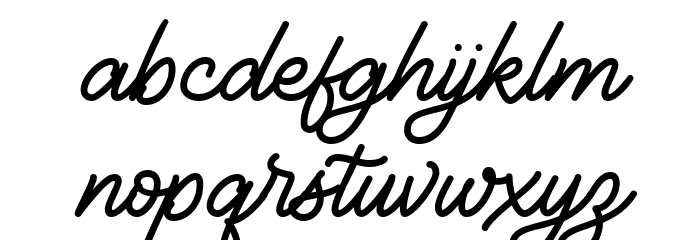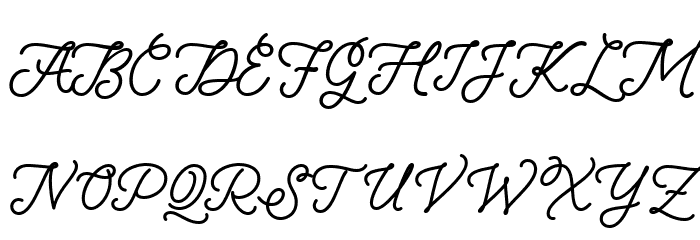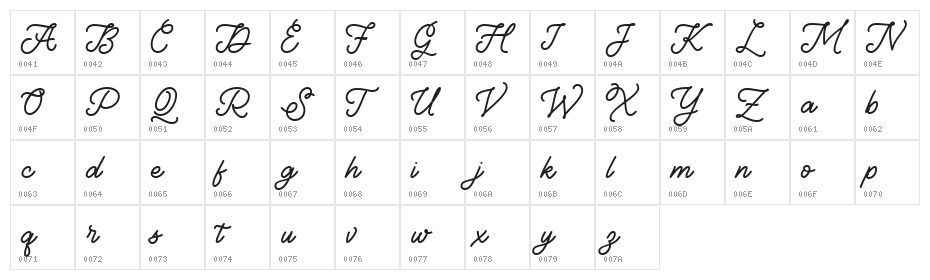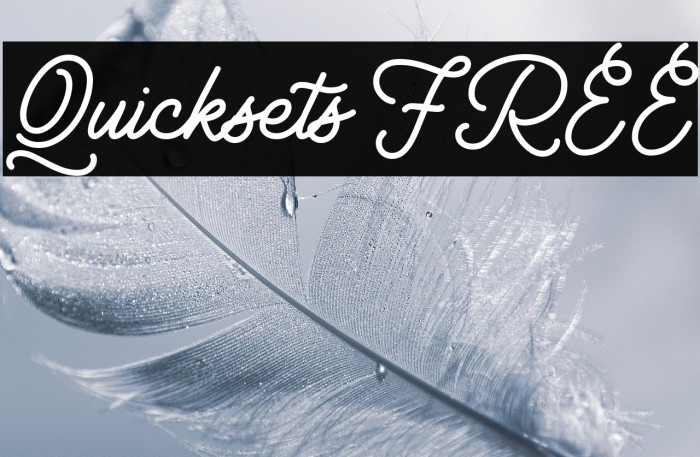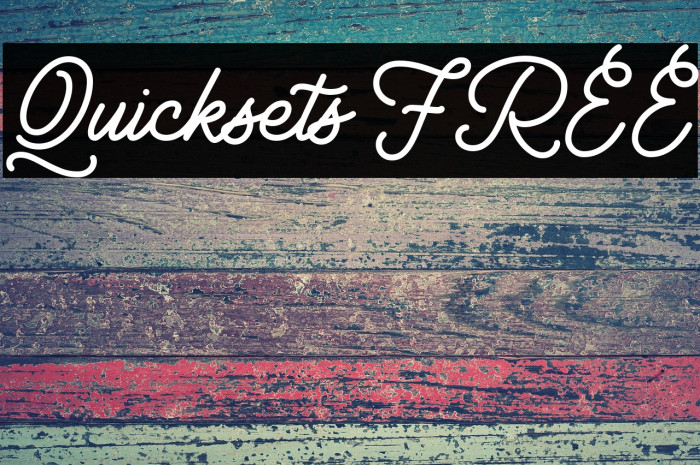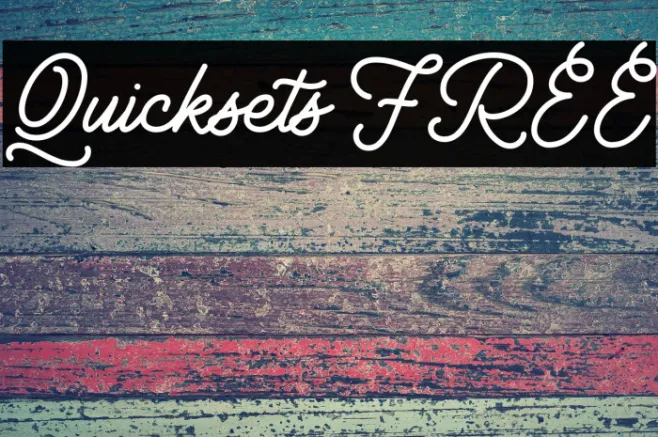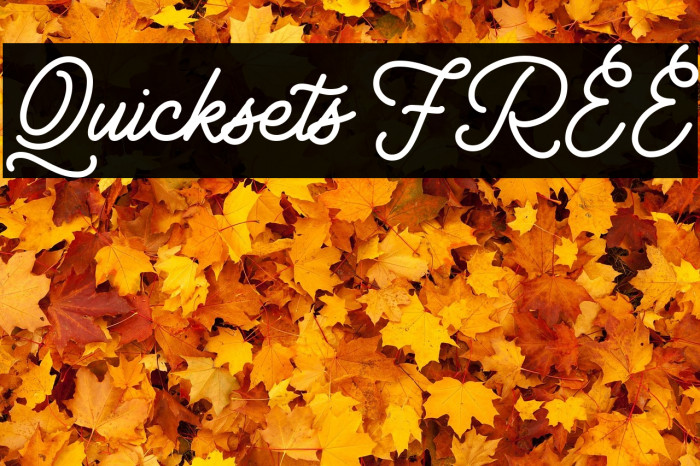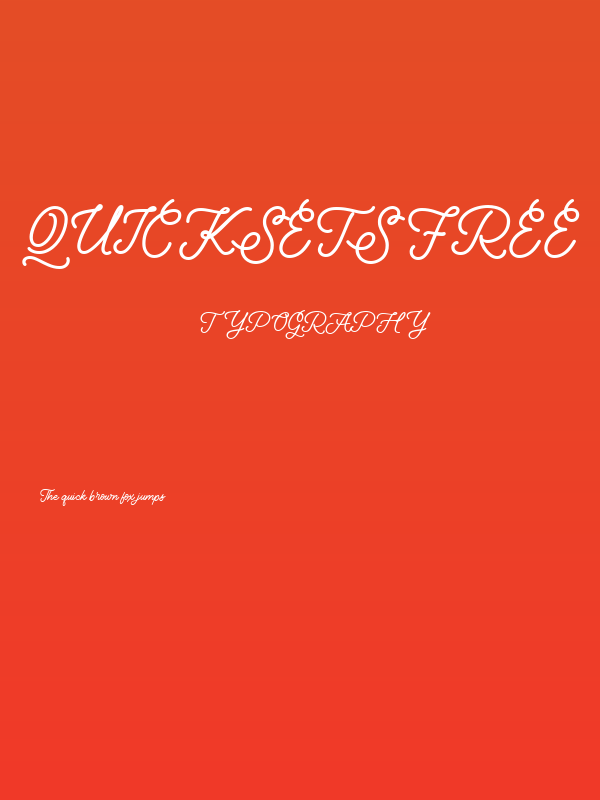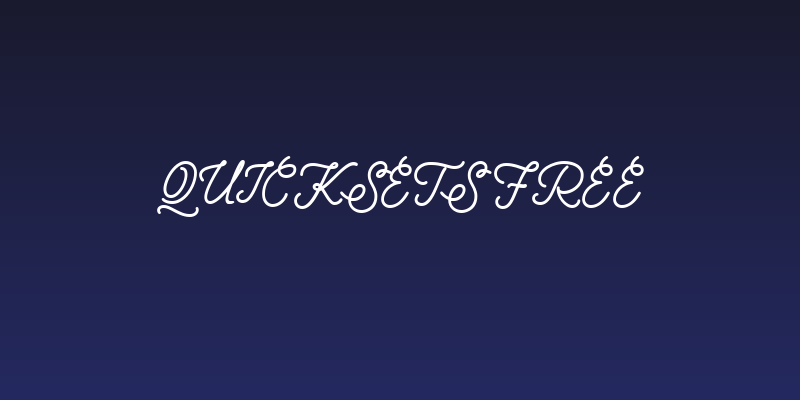
Quicksets FREE Font
This font features a flowing, cursive style that exudes elegance and sophistication. The uppercase letters are intricately designed with smooth, continuous strokes that create a sense of fluidity and grace. The lowercase letters maintain the same fluidity, with a slightly bolder appearance that enhances readability. The font's overall design is reminiscent of traditional calligraphy, with a modern twist that makes it suitable for a variety of applications. The characters are well-spaced, ensuring clarity and legibility, while the consistent stroke width adds to its polished look. This font is perfect for projects that require a touch of elegance and class.
A flowing, cursive font with elegant, continuous strokes and a modern calligraphic style.
- Proposed Projects: Ideal for wedding invitations, elegant branding, greeting cards, and sophisticated logo designs.
- Overall Style: Elegant, Modern
- Use Case: Logos, Invitations, Branding